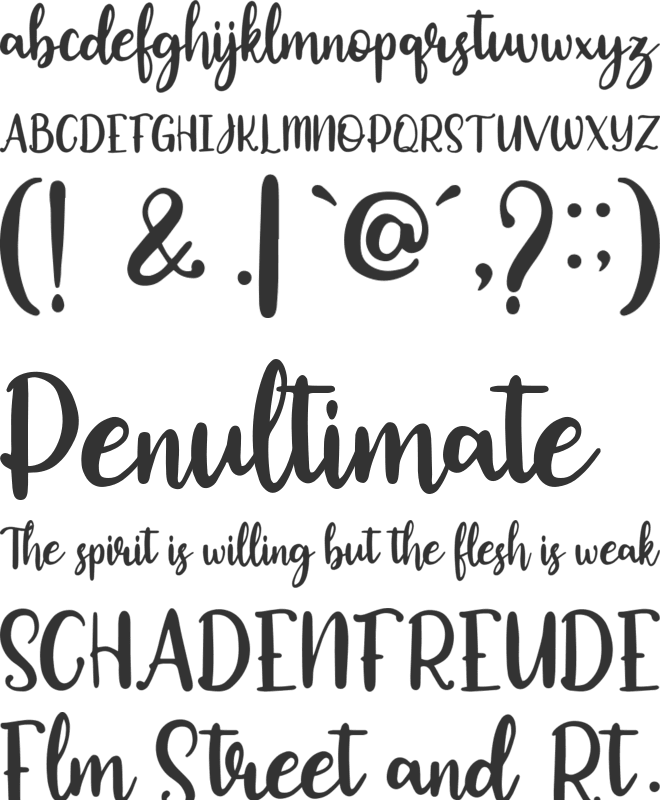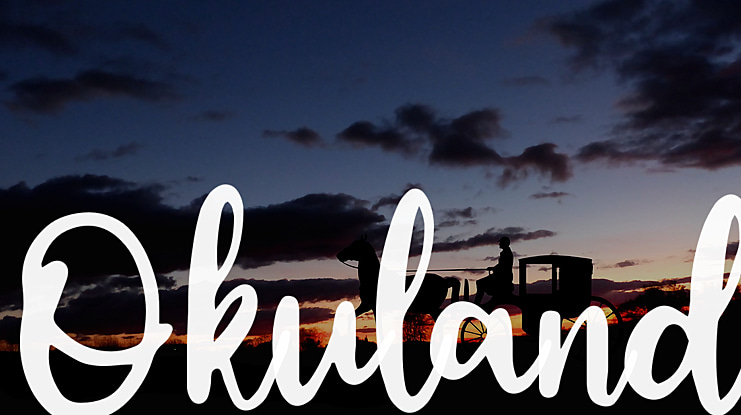
Okuland Font
Hi,,, Introducing new my font "OKULAND". This font so feminine and classic, with added a alternative make this font so beautiful. This font is highly recommended for those of you who want to make it for Logo, Quotes, Magazine, Fashion, Branding, and others.